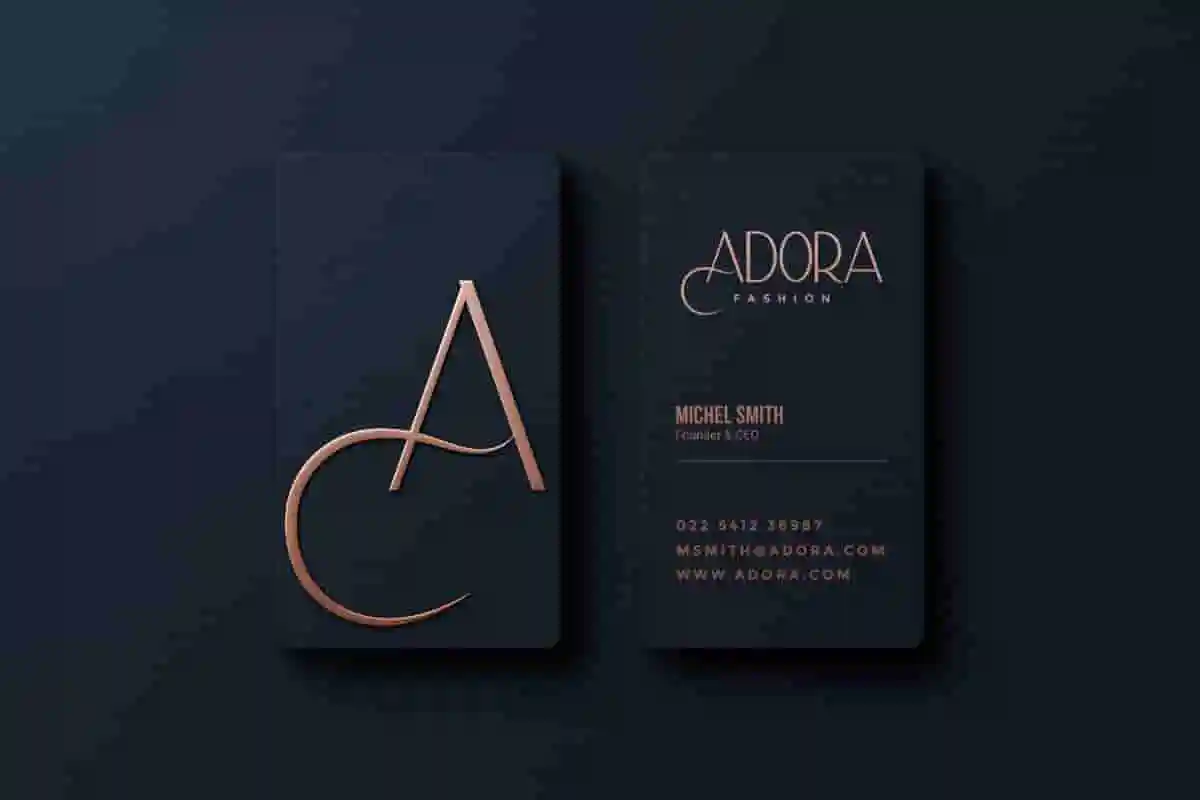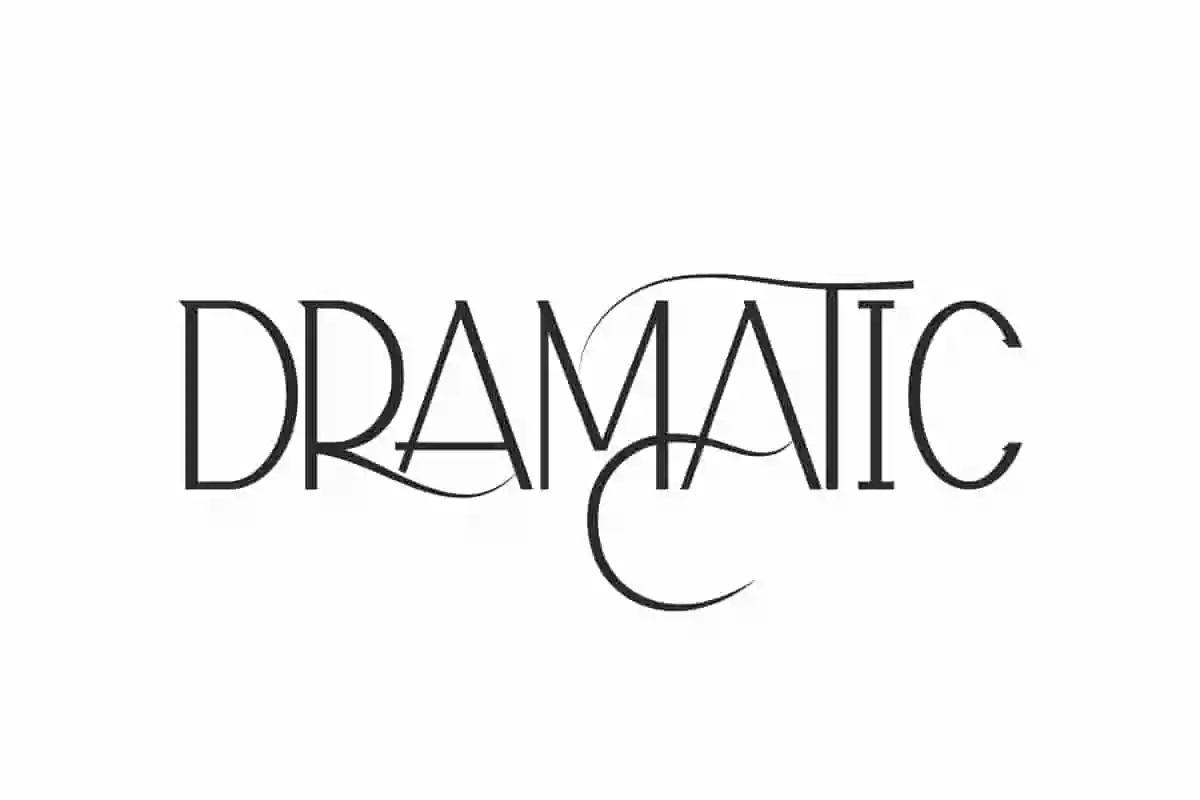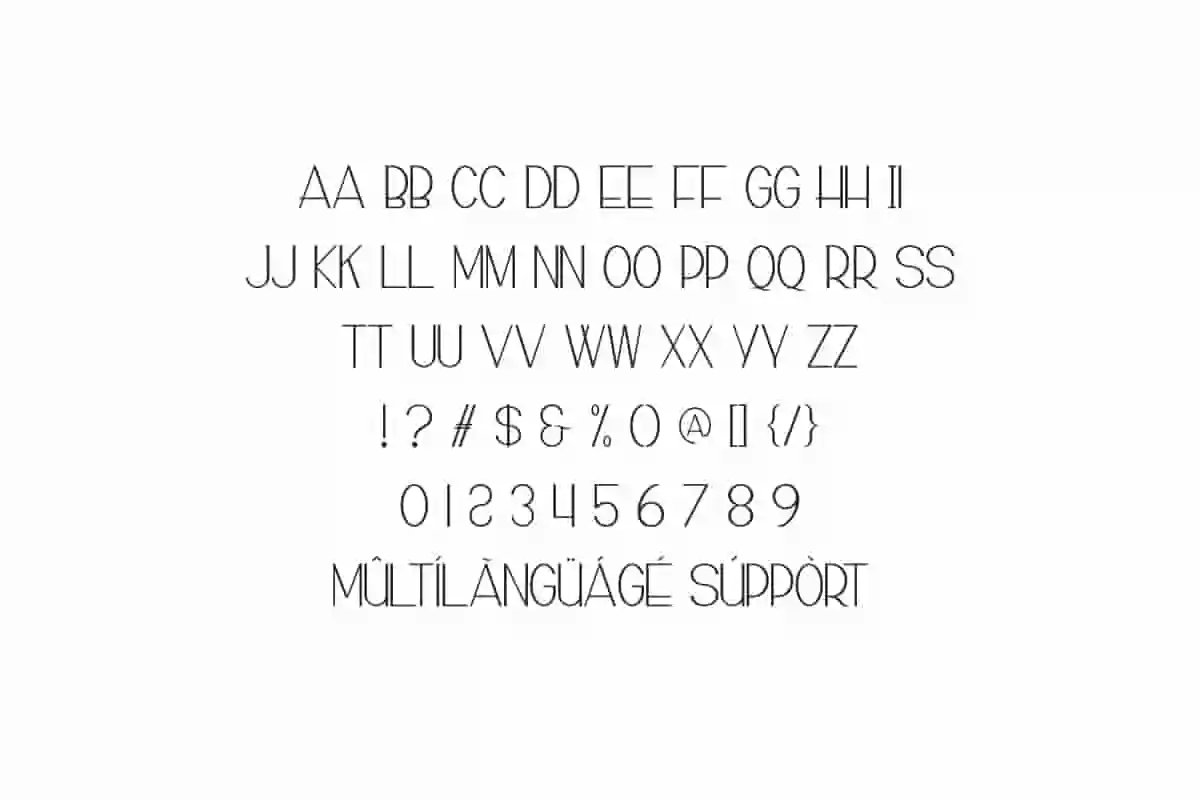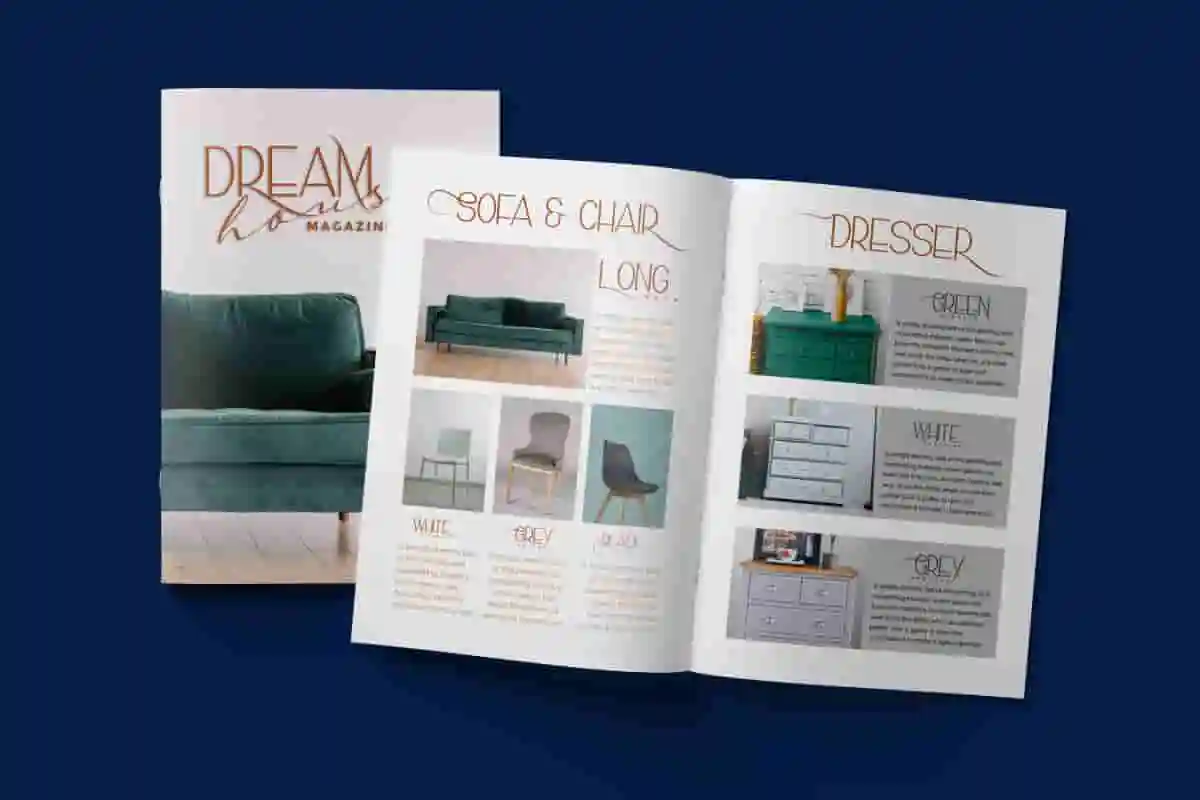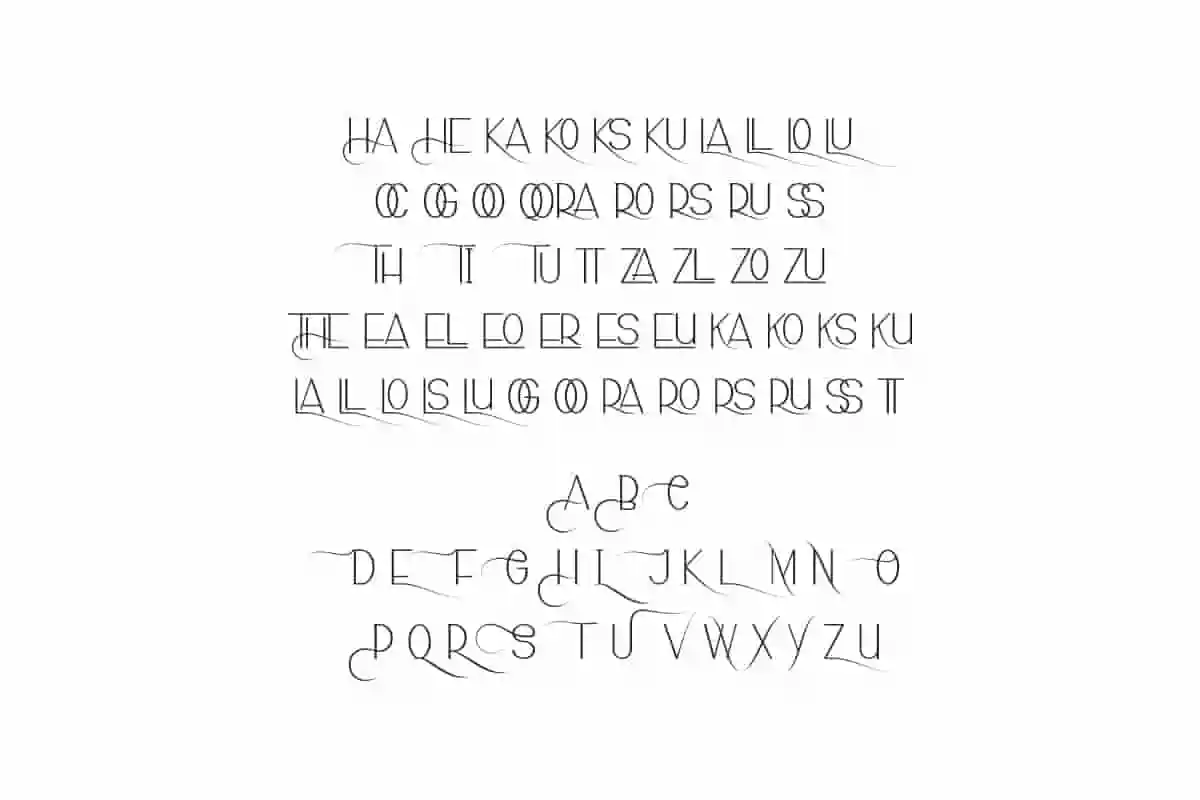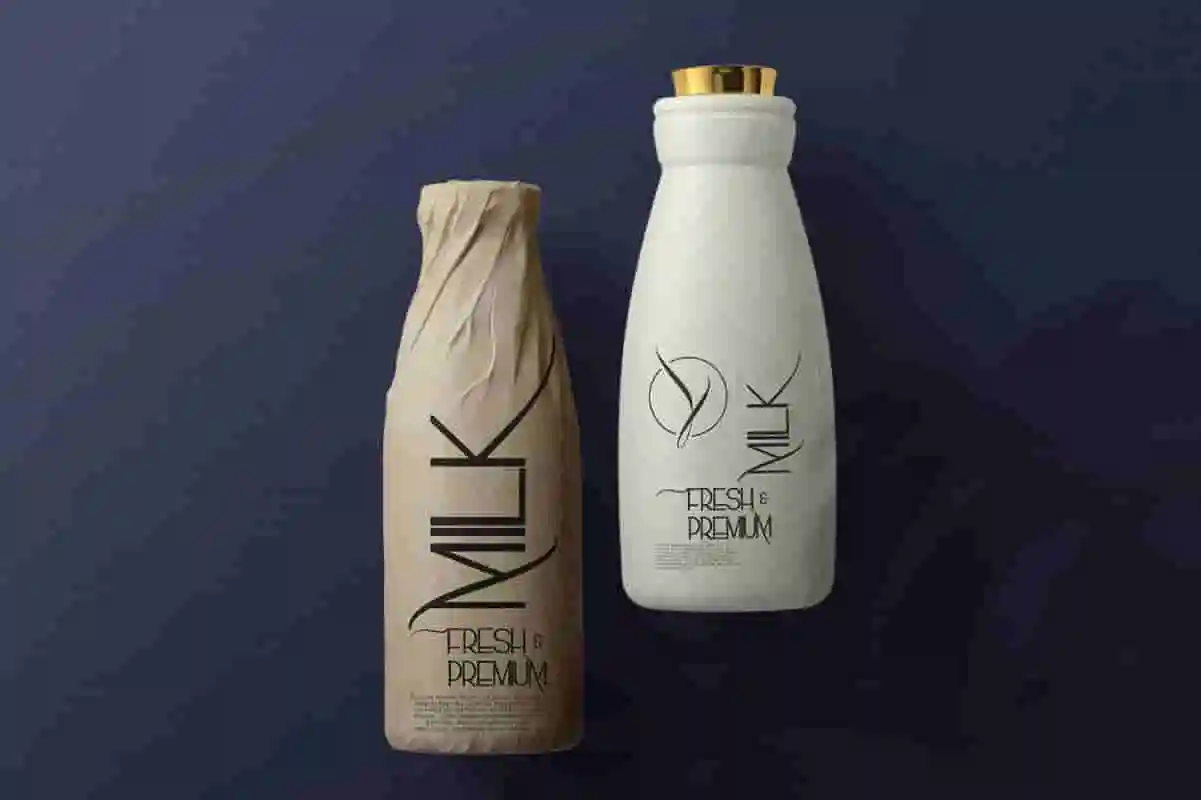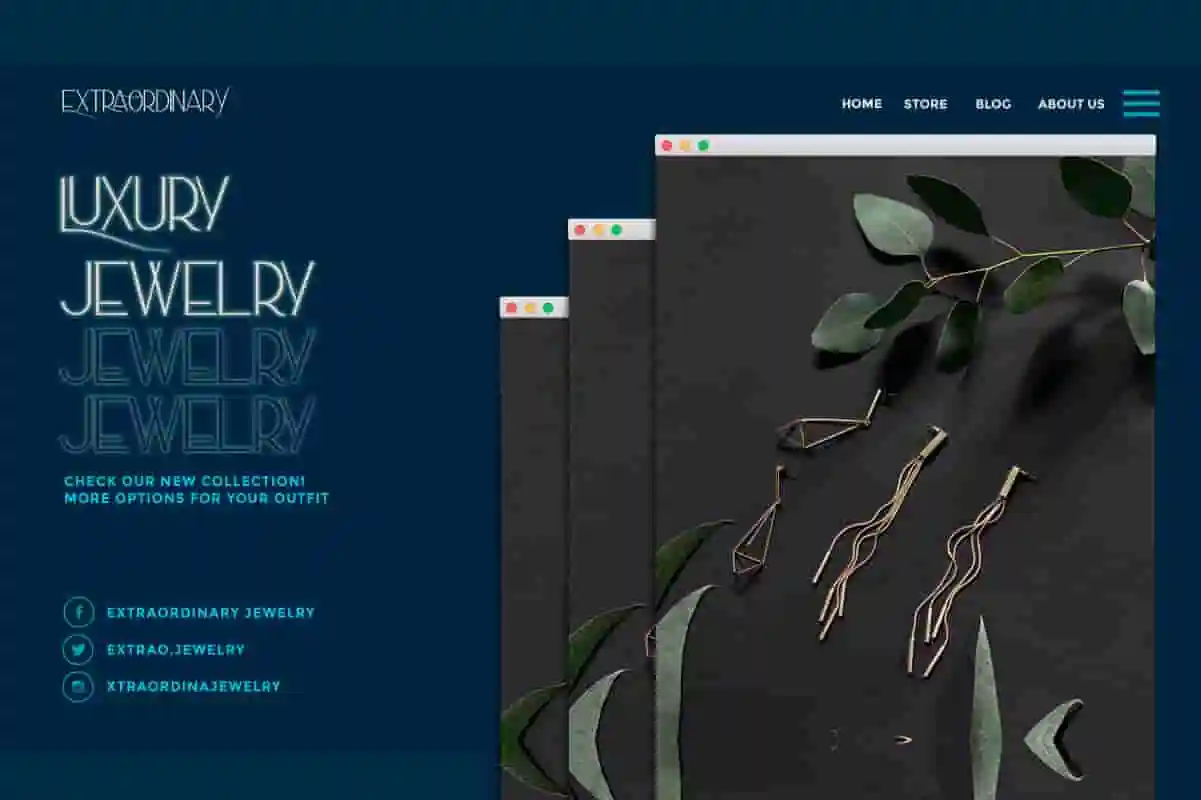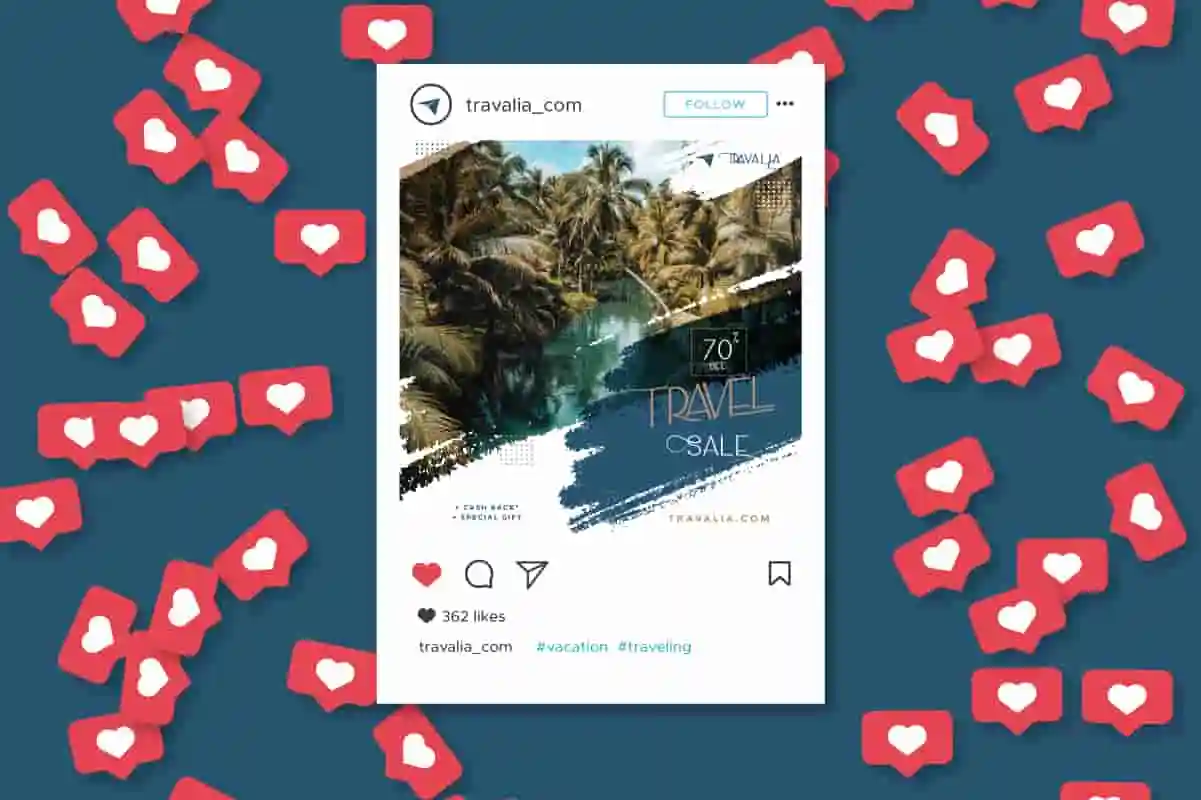
Dramatic Font is a stylish modern display font by NihStudio, made in 2021. Dramatic Stylish Font will great for many industries : magazine, fashion, cosmetic, wedding, florist, or vintage projects.
Handcrafted here in our Studio , Indonesia. Dramatic Modern Font will be great for any projects (require extended license) including : branding, logo, stationery, business card, signage, flyer, brochure etc. Dramatic Font comes with many alternative characters and ligatures to make it flowless and stunning.